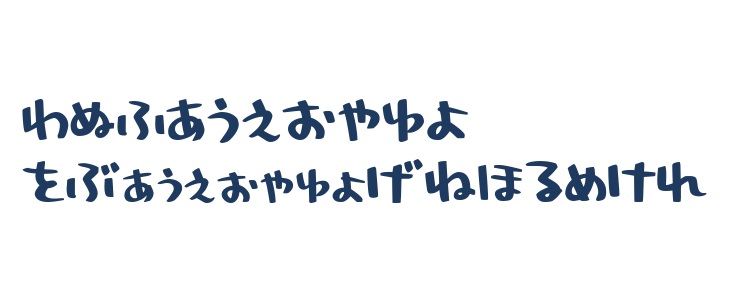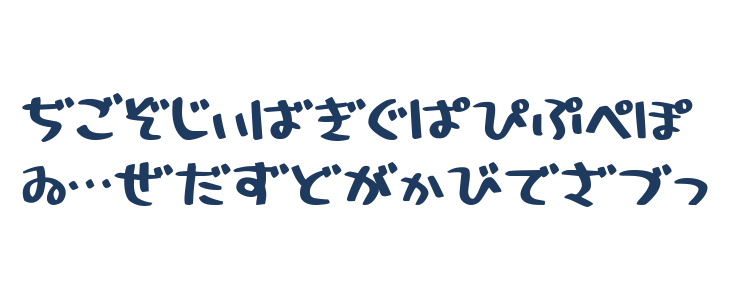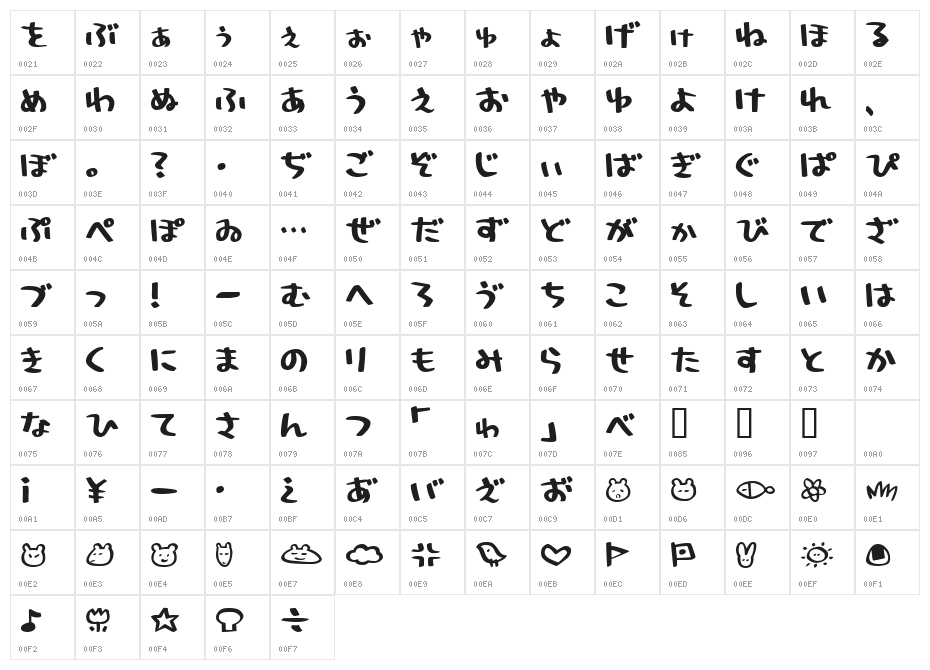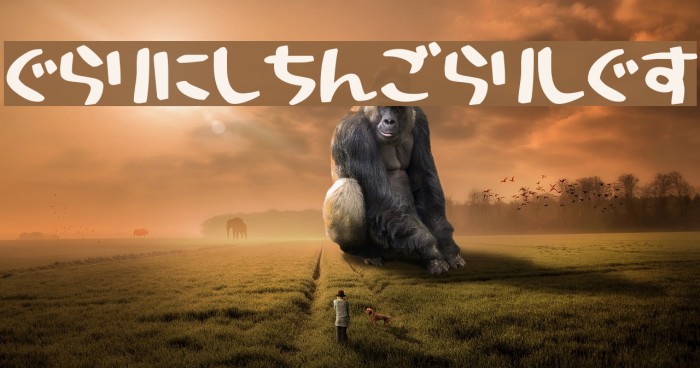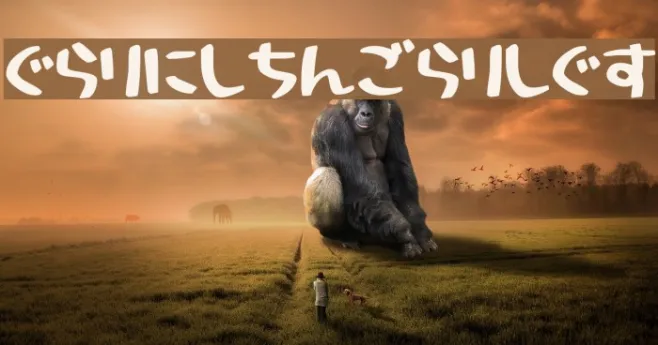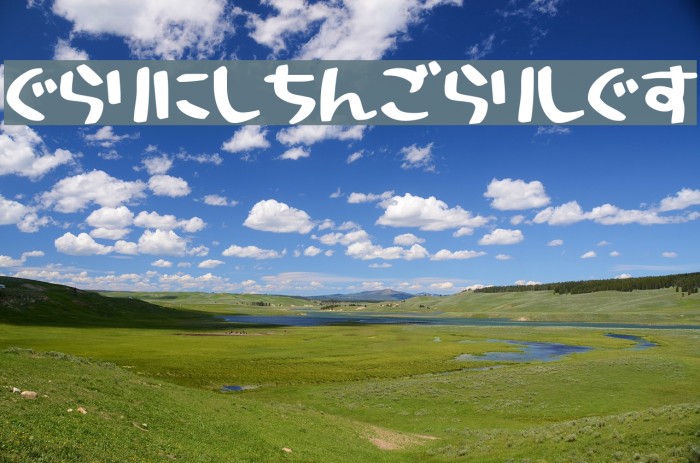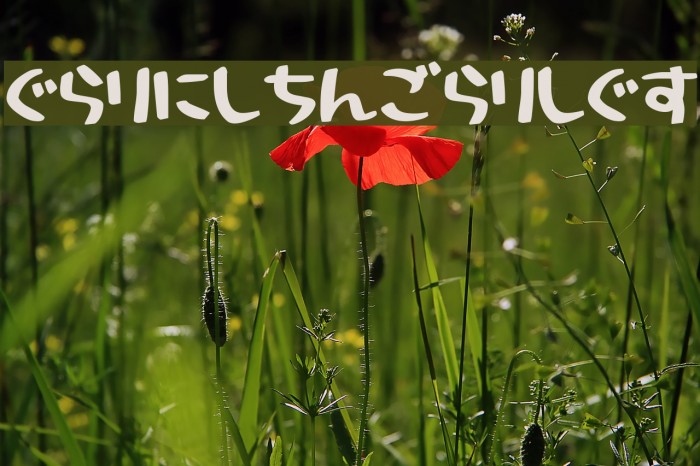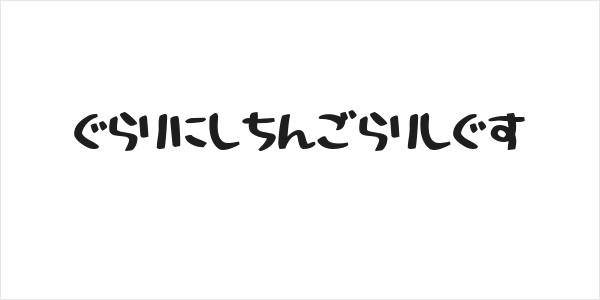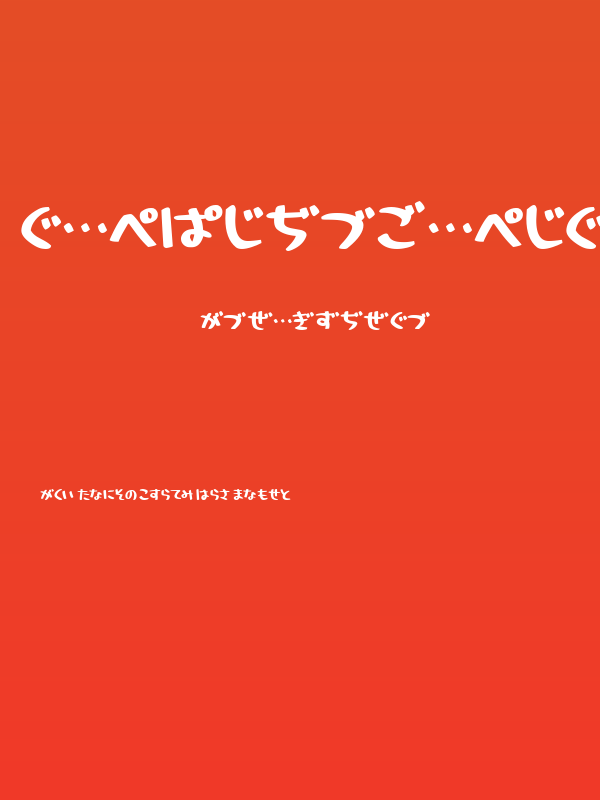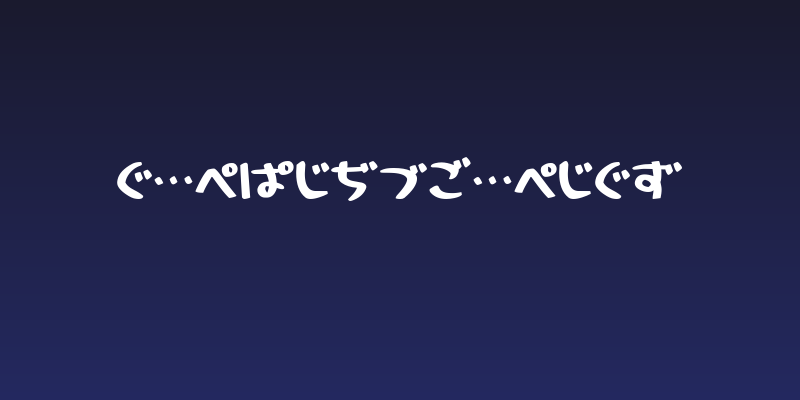
HolidayBoldHr Font
This font features a playful and bold style with rounded edges and a slightly irregular baseline, giving it a whimsical and informal appearance. The characters are thick and well-defined, with a consistent stroke width that adds to the boldness. The overall look is friendly and approachable, making it suitable for casual and fun designs. The font maintains a uniform height across all characters, ensuring readability while adding a touch of creativity with its unique character shapes.